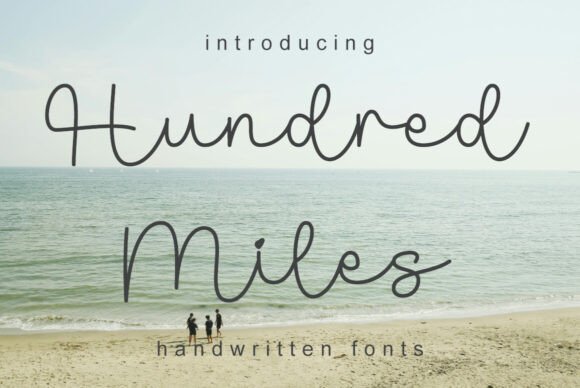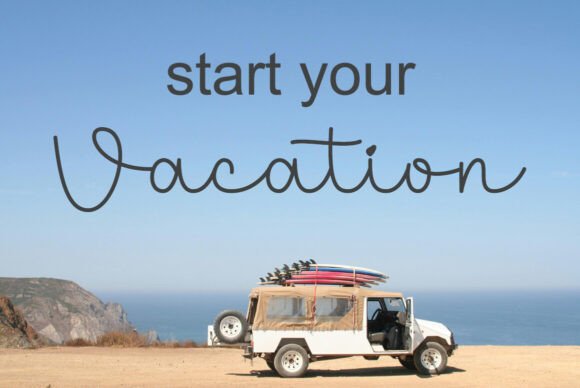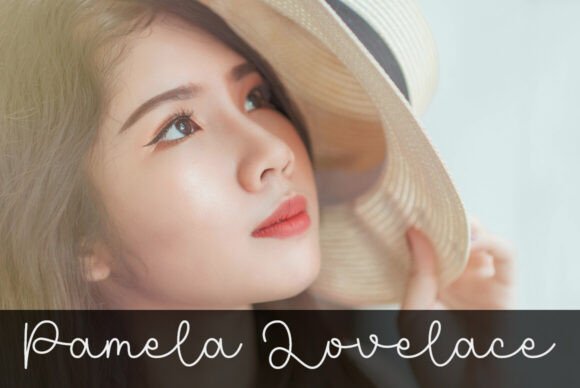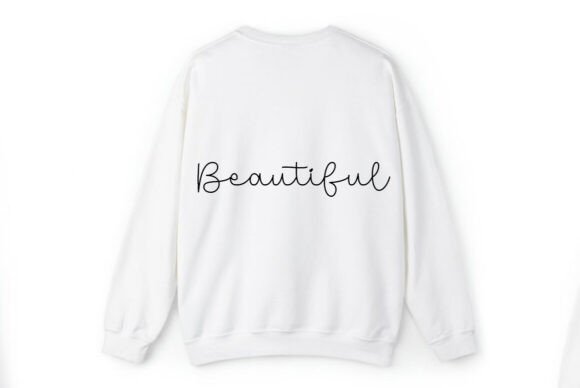
Hundred Miles Font: A Cute Handwritten Font for Wedding Invitations & DIY
About the Hundred Miles Font
Meet Hundred Miles Font, a stunning font that brings a touch of elegance and professionalism to any design. Hundred Miles is a sweet and friendly handwritten font. Cute and fun, this font is ideal for writing wedding invitations, cards, or any other design that might need a fun touch! This font is PUA encoded which means you can access all of the glyphs and alternates with ease!
Hundred Miles shines in projects requiring a touch of playful charm. It’s perfect for headlines, short text blocks on invitations or social media graphics, and branding elements where a friendly, approachable feel is desired. Consider it for packaging design on products aimed at a younger demographic or for projects with a lighthearted, whimsical tone. Avoid using it for large bodies of text or UI elements; its informal nature can hinder readability in longer passages.
Pairing Hundred Miles effectively requires considering its handwritten nature. A clean sans-serif like Open Sans or Lato would provide a strong contrast and enhance readability in supporting text. For a more sophisticated look, a delicate serif font such as Playfair Display could add a touch of elegance. Alternatively, a geometric sans-serif could create a modern, balanced pairing.
The overall personality of Hundred Miles is undeniably cheerful and approachable. Its informal style makes it unsuitable for serious corporate branding or formal documents. However, its warmth and friendliness make it a great choice for projects aimed at evoking positive emotions and a sense of approachability.
Hundred Miles Font Usage Examples
Hundred Miles Font Example